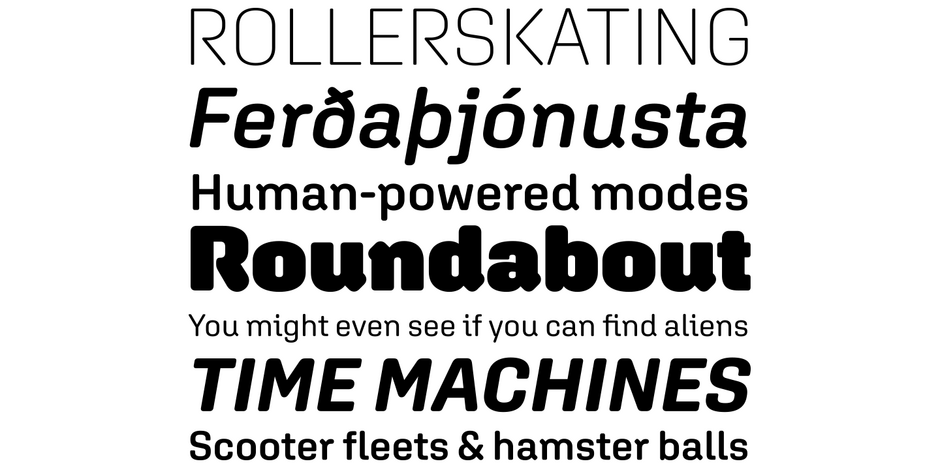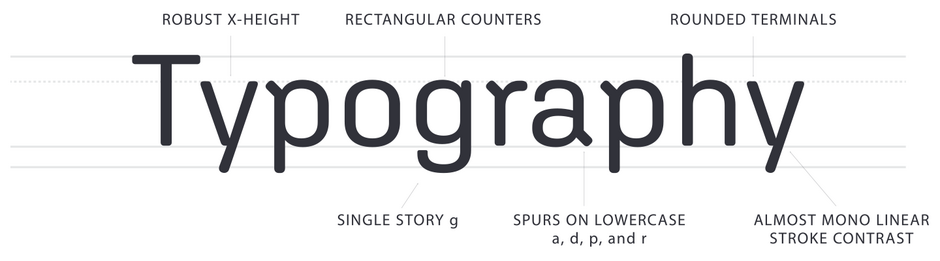
Aglet Sans Font Field Guide
Best Practices
Aglet Sans is intended for text to display sizes, both in print and on screen. It is spaced more towards display use, so very small point sizes will need a touch of tracking to read best.
Family
Seven weights ranging from Extra Light to Ultra, each with a complementary italic, for 14 typefaces.
Font Facts
• Aglet Sans is adapted from its precursor Aglet Slab, also by Jesse Ragan.
• The fonts have a large assortment of arrows, stars, check-boxes, and hearts for UI design.
• After getting a bunch of client requests for a rounded slab serif design for tech companies, Jesse Ragan decided to start the Aglet super-family (Aglet Slab, Aglet Sans, Aglet Mono).
Roots
Aglet Sans is an exploration what it means to be a rounded typeface and the ways in which a system can be implemented and strategically broken. The design has a mix of corner radiuses, not just a cookie cutter application of a round corner to every stroke. Each stroke ending was considered independently to make a rounded grotesque sans serif that felt natural. The interlocking entrance and exit strokes create spirited counter forms that urge the eye forward. These unorthodox details generate interest when set large, yet provide a crisp but unobtrusive voice for paragraphs and captions, both in print and on screen.
Legibility
Rectangular counters with a large x-height, along with a lowercase l with a tail helps Aglet Sans be easily read at small sizes.
How to spot Aglet Sans